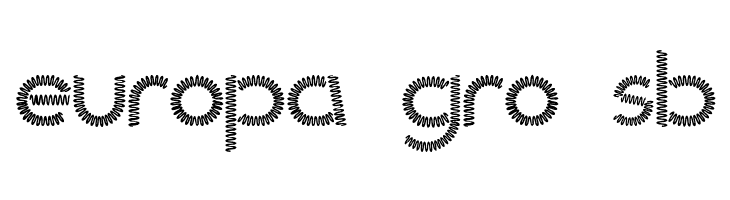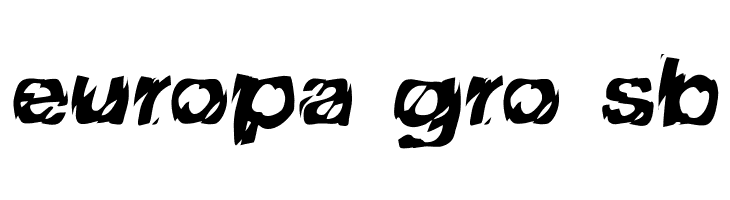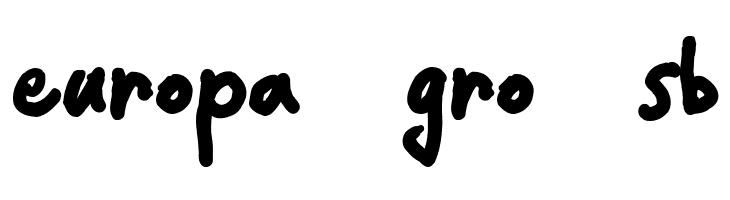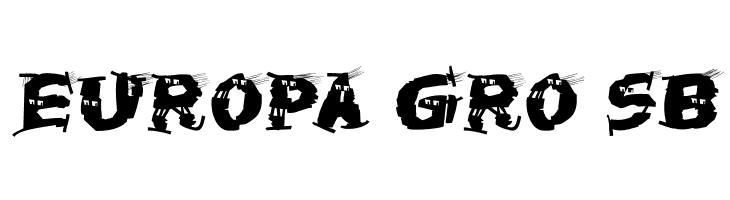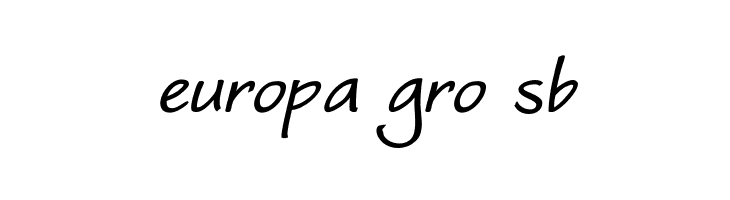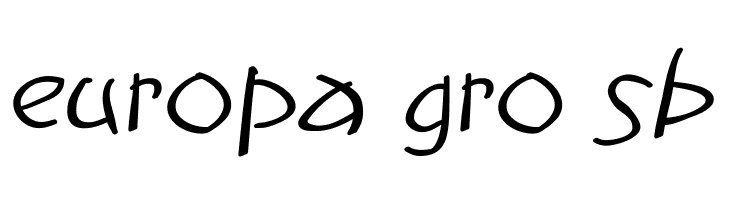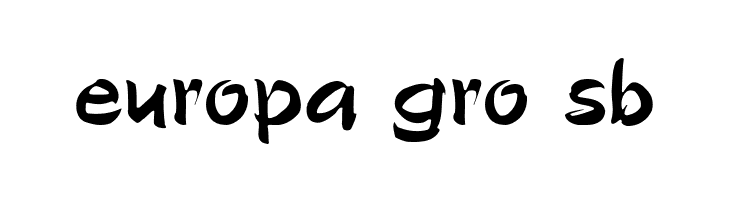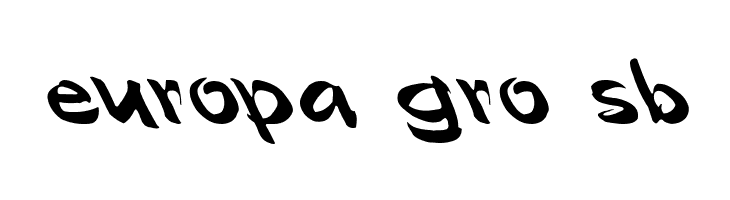
A playful, spiral-patterned font with a bold and energetic style.
A bold, jagged font with a wild, energetic appearance.
A bold, handwritten font with an energetic and playful style.
A bold, distressed font with a chaotic and energetic style.
A bold and oblique font with dynamic, fluid strokes and rounded edges.
A bold, hand-drawn font with a playful and energetic style.
A bold, brush-style font with expressive and dynamic strokes.
A bold, dynamic script font with a playful and energetic style.